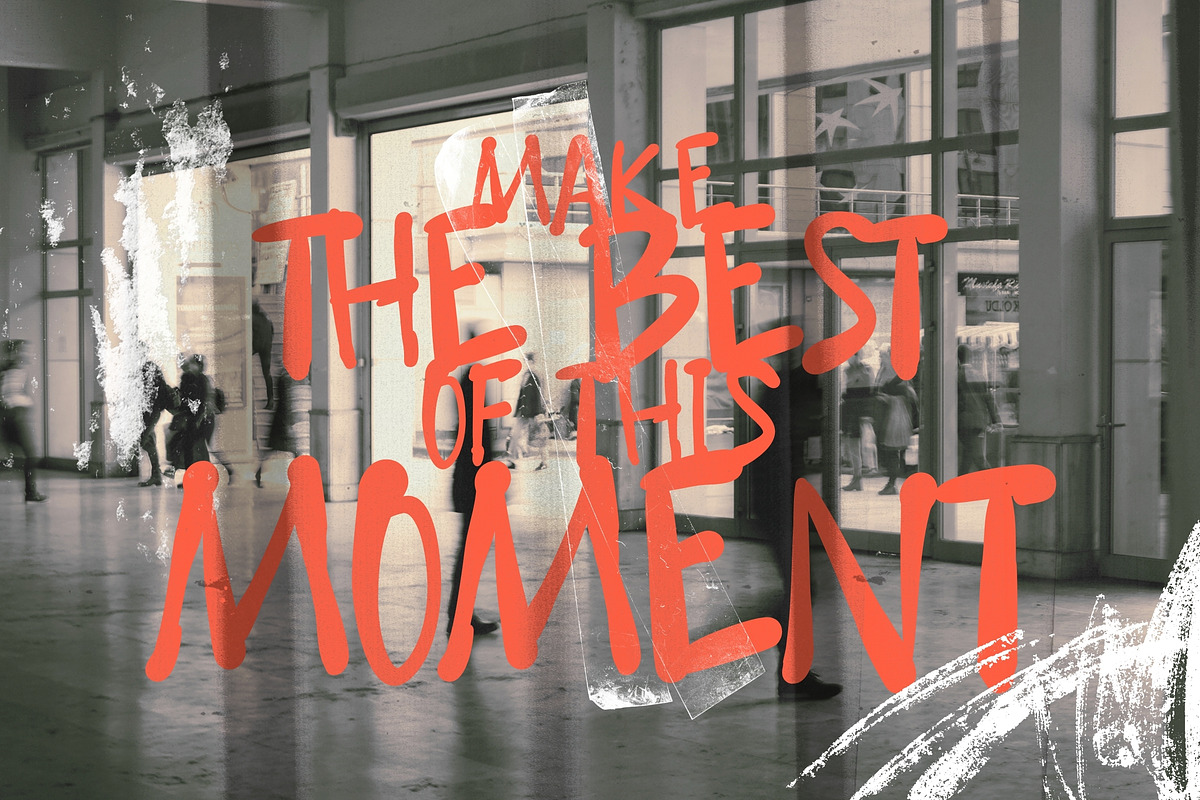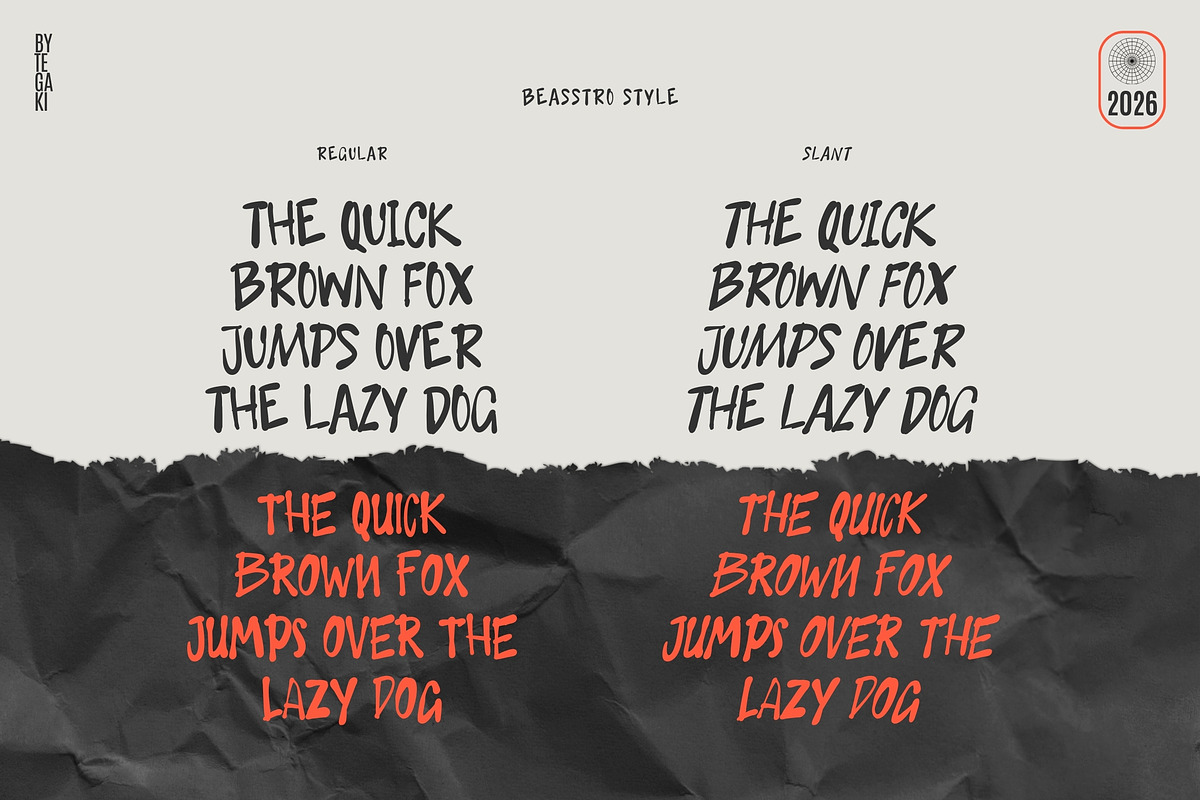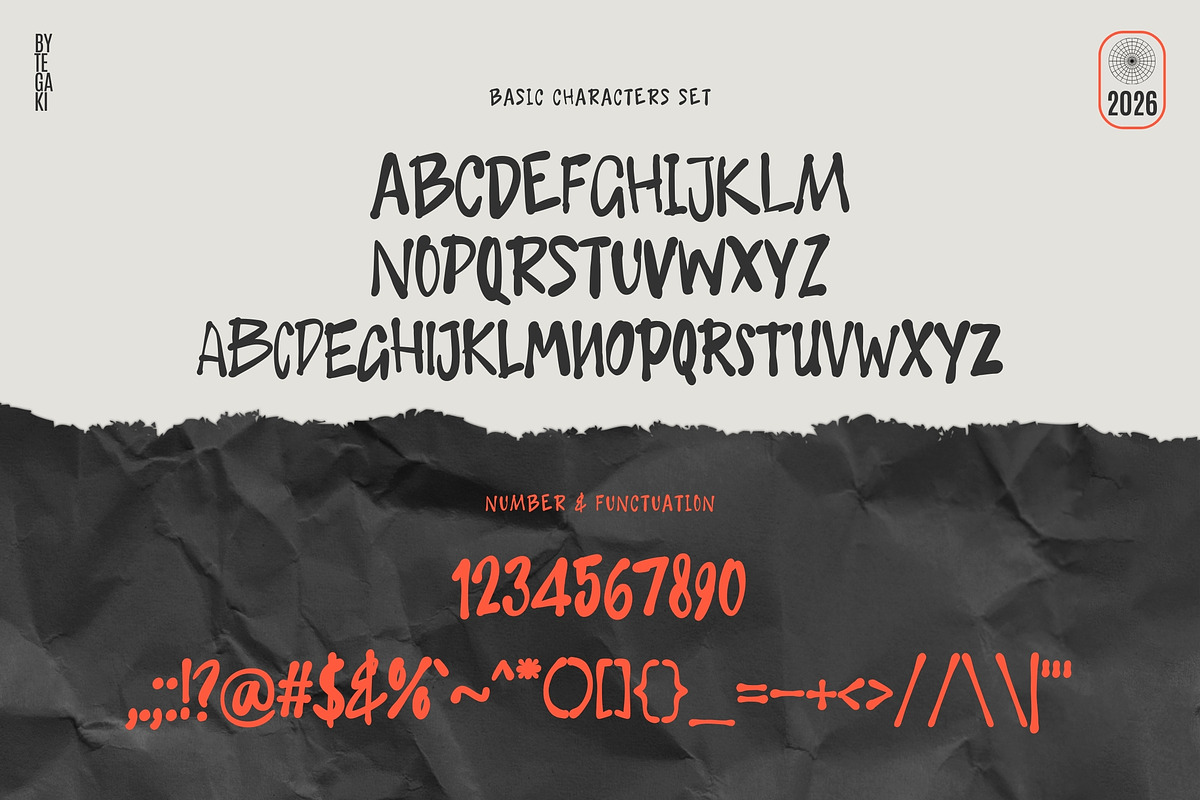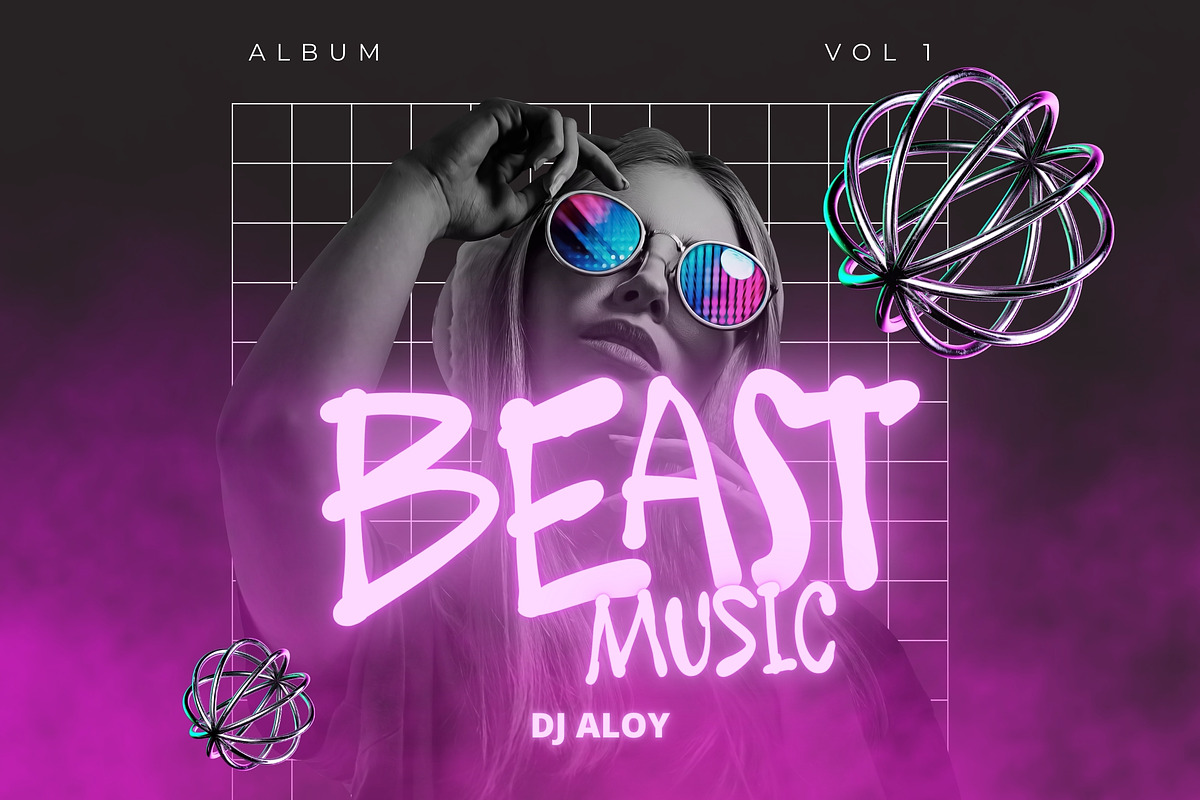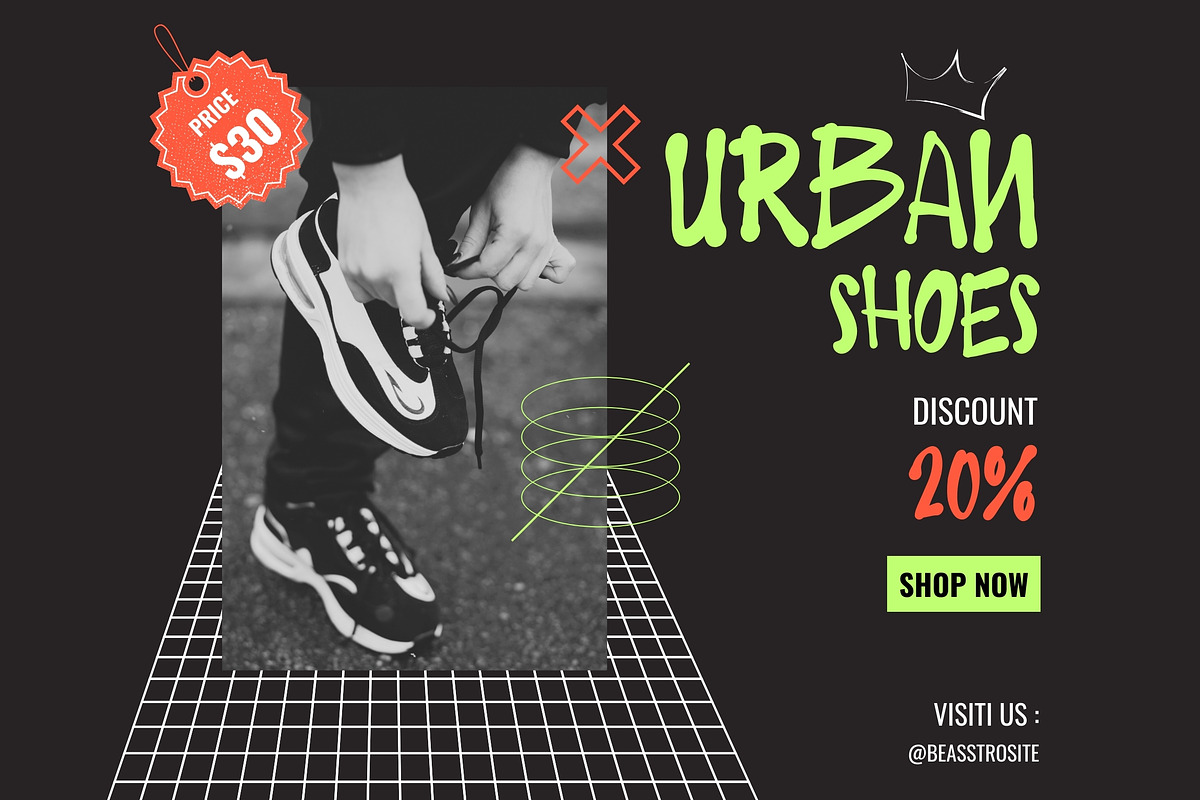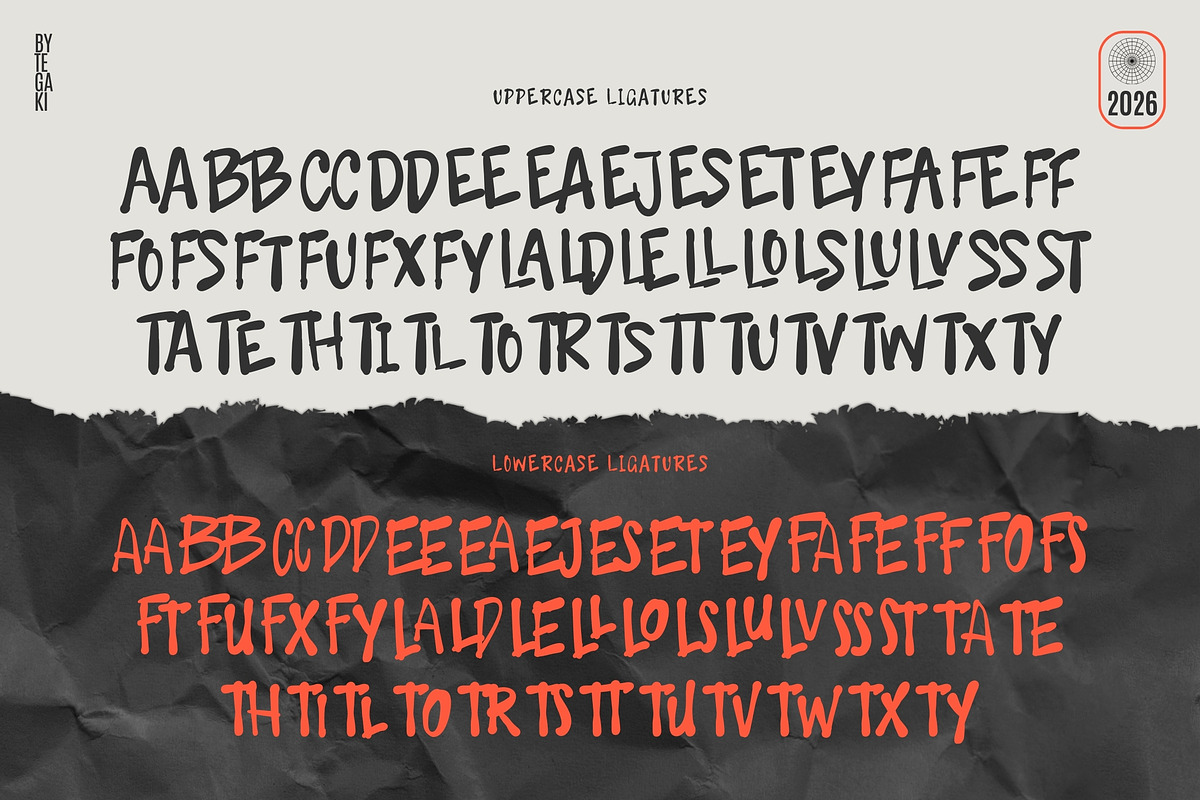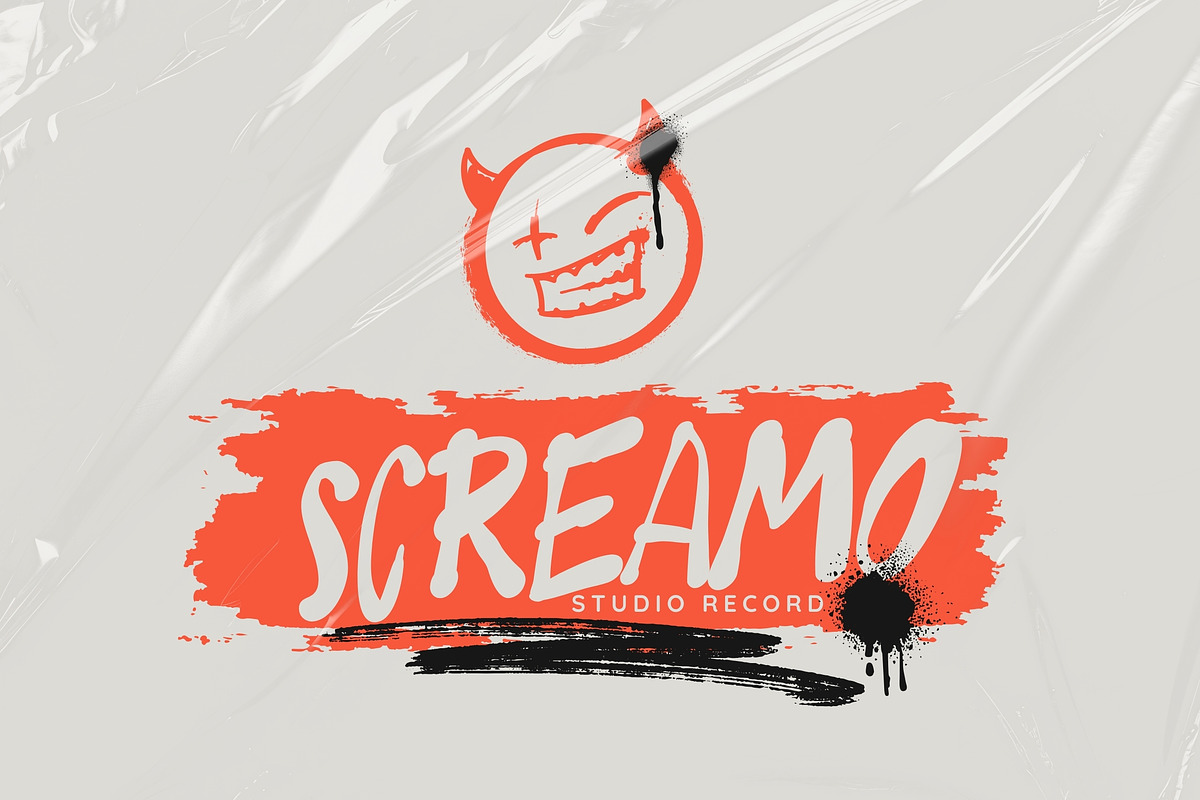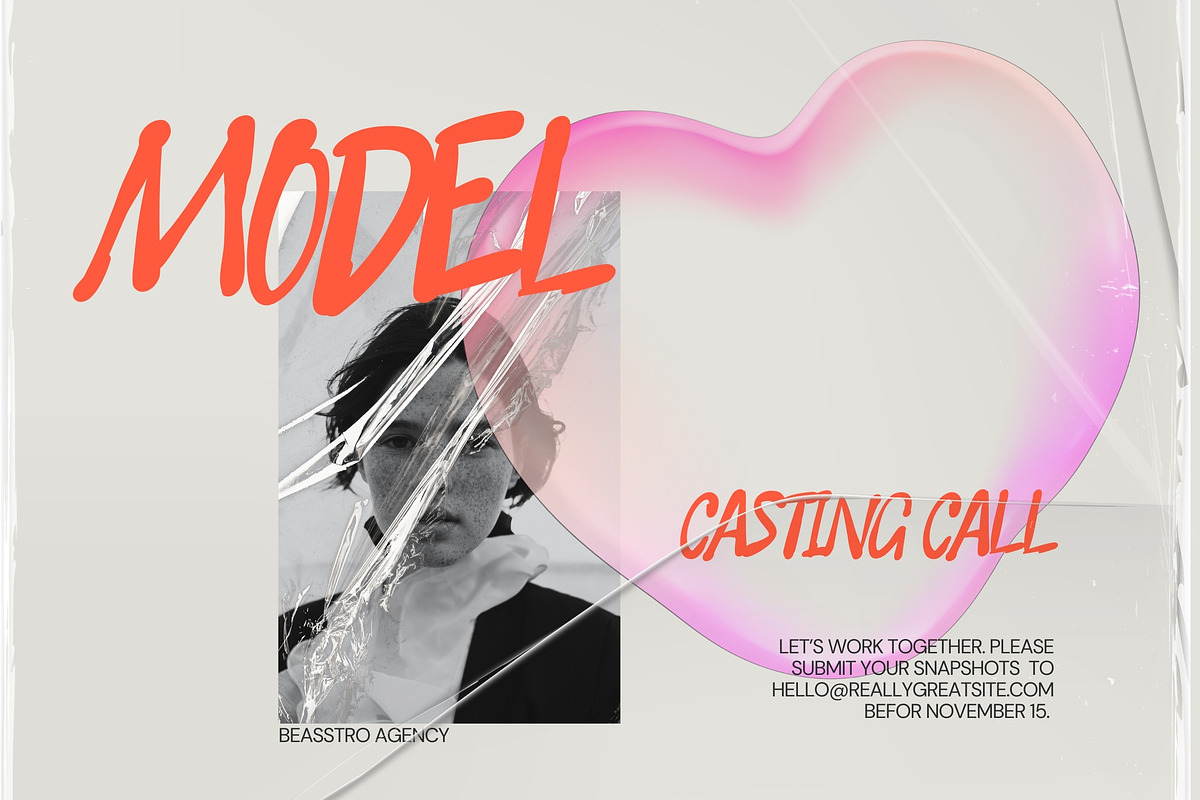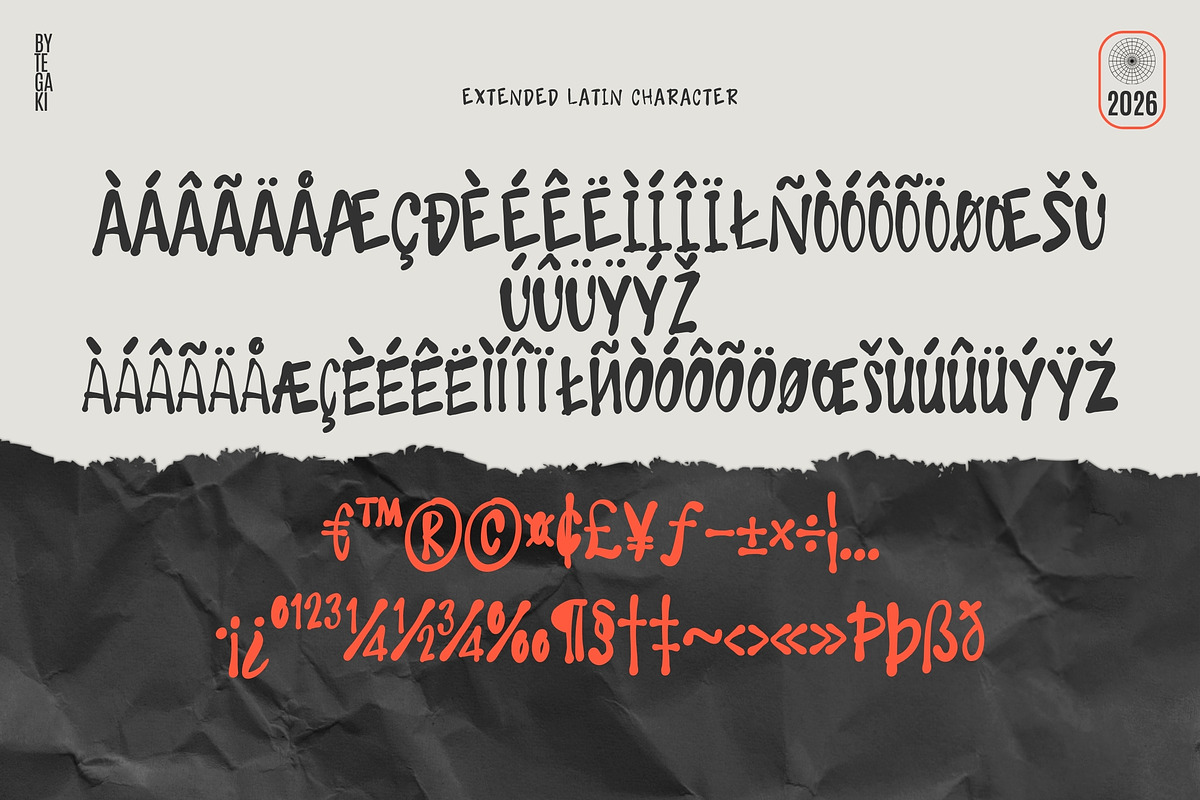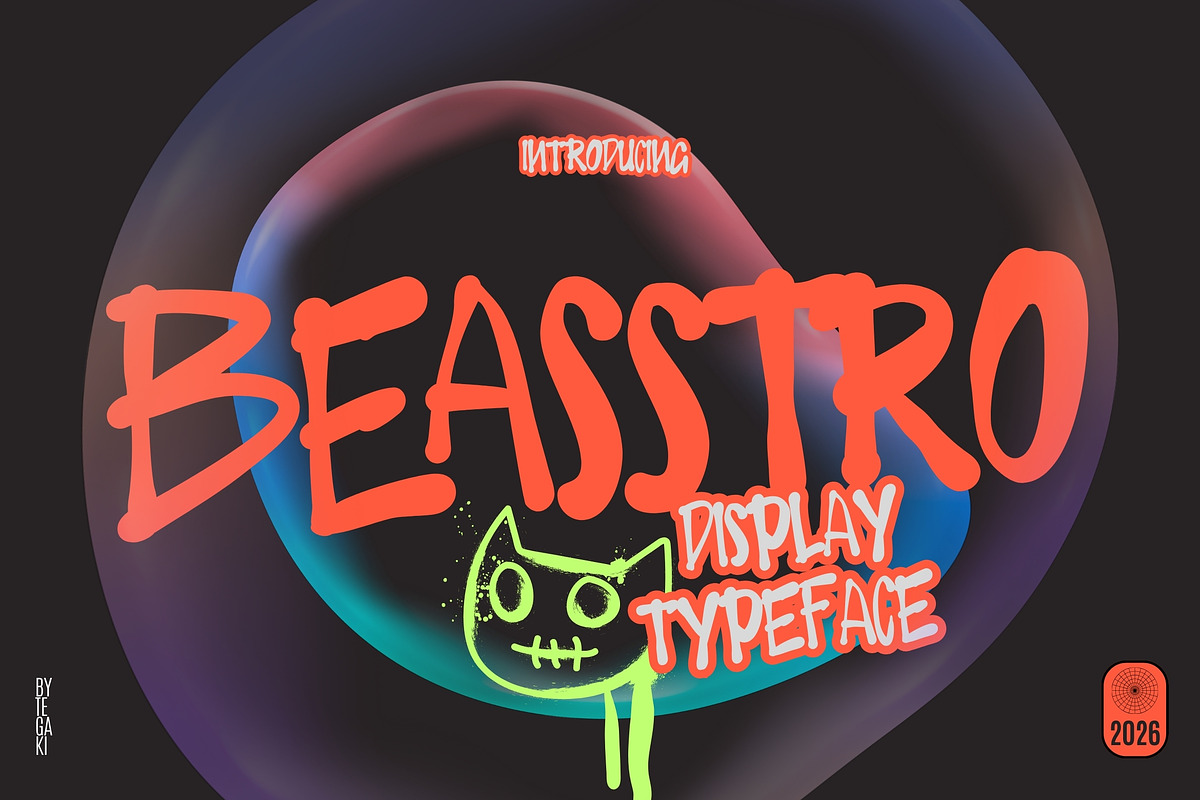
Beasstro
Introducing Beasstro
Designed by Tegaki Script
Beasstro - Display Typeface
Beasstro is an expressive display typeface with a raw, hand-drawn feel that instantly captures attention. Its irregular strokes and playful imperfections create a unique, edgy character—perfect for projects that want to stand out and feel alive. From posters, album covers, and street-style branding to merchandise and social media graphics, Beasstro delivers a strong and artistic visual impact.
Available in 2 styles: Regular and Slant, this typeface offers both a solid presence and a dynamic flow. It also features a variety of ligatures, allowing more expressive letter combinations and enhancing its handcrafted personality. Unconventional and full of attitude, Beasstro is built for bold, creative designs.